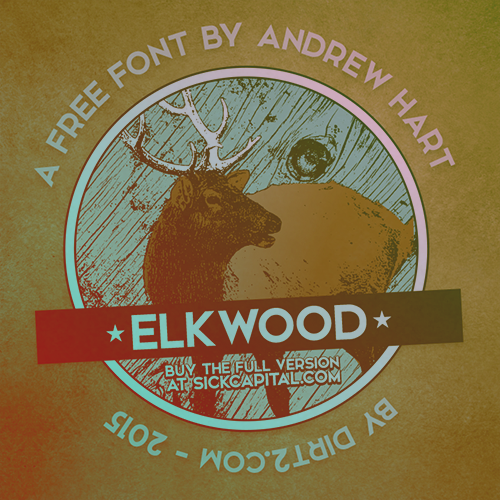
Elkwood is the san serif font I made for my winter themed font 'Snowinter'. This font is like a bolder, wider and more polished version of Alpaca that I hope to use for other themed fonts in the future. Purchase the full commercially licensed version at my shop: SickCapital.com Made something you'd like to share? Just leave a comment! Happy downloading and stay creative. |